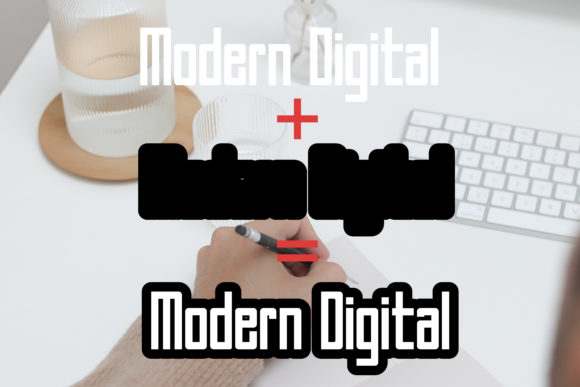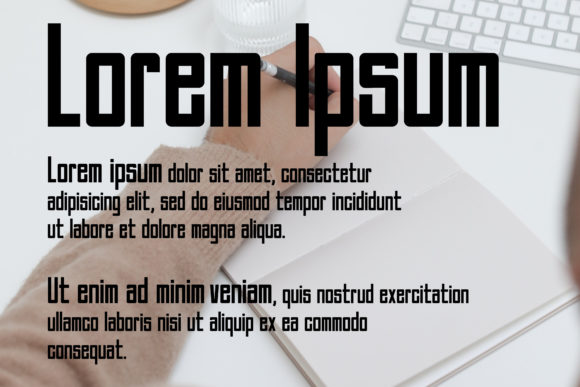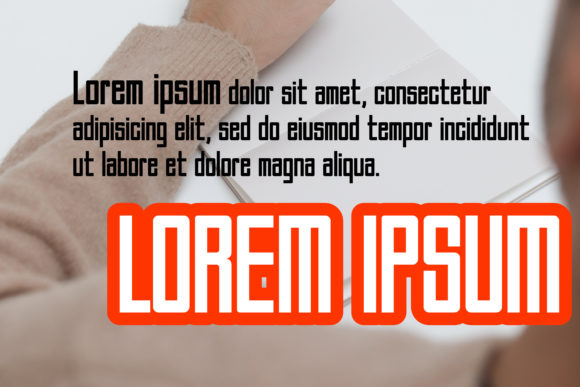
A Modern Digital Font: Free Download Now
Introduction to A Modern Digital Font
A Modern Digital is a simple and sharp looking display font, that will truly inspire your works.
Use this font for your designs and explore its endless possibilities .
Key Features of A Modern Digital Font
Why Choose A Modern Digital Font?
A Modern Digital Font offers exceptional quality and versatility, making it a valuable addition to your design toolkit. Whether you’re creating for personal projects or commercial use, A Modern Digital Font delivers professional results.